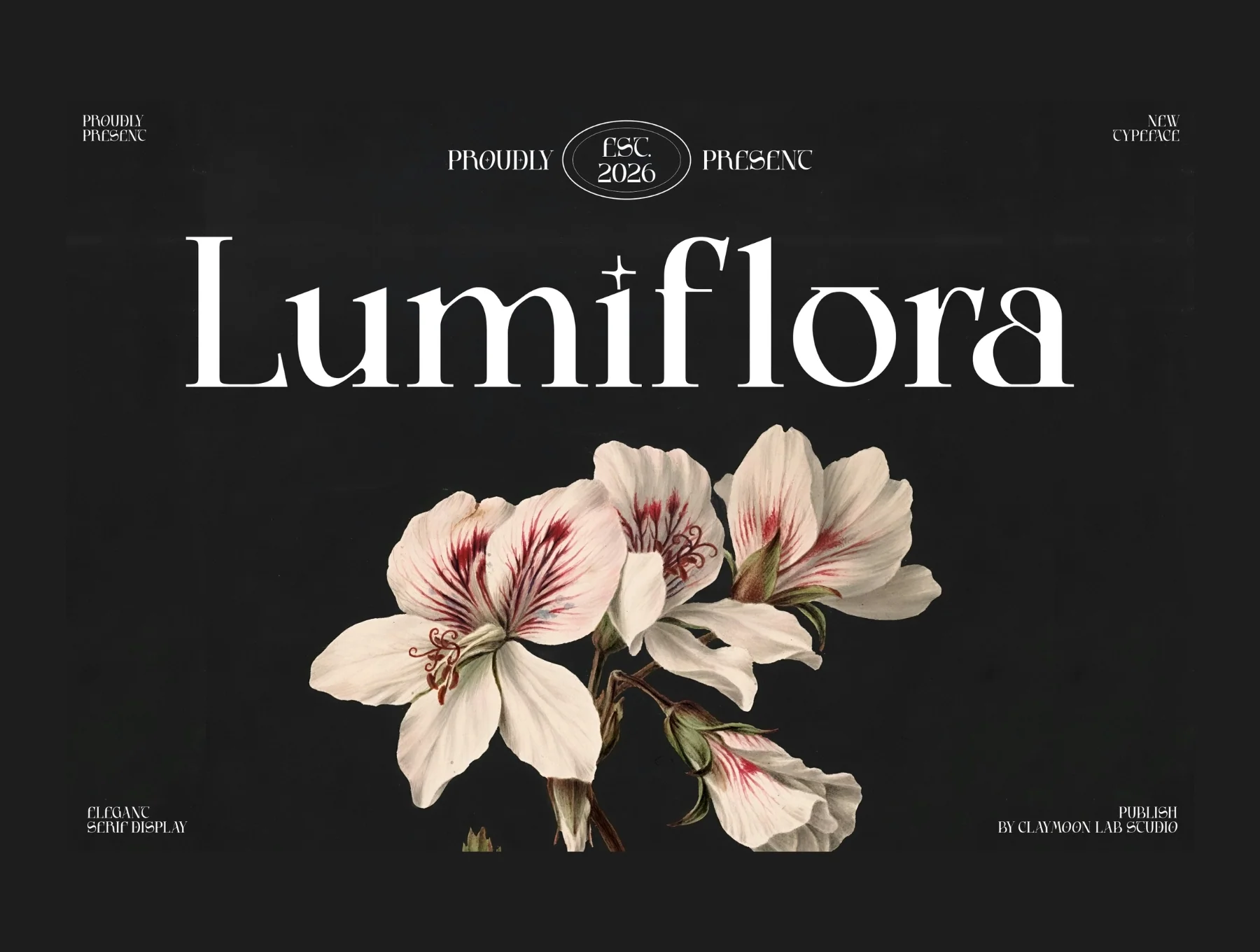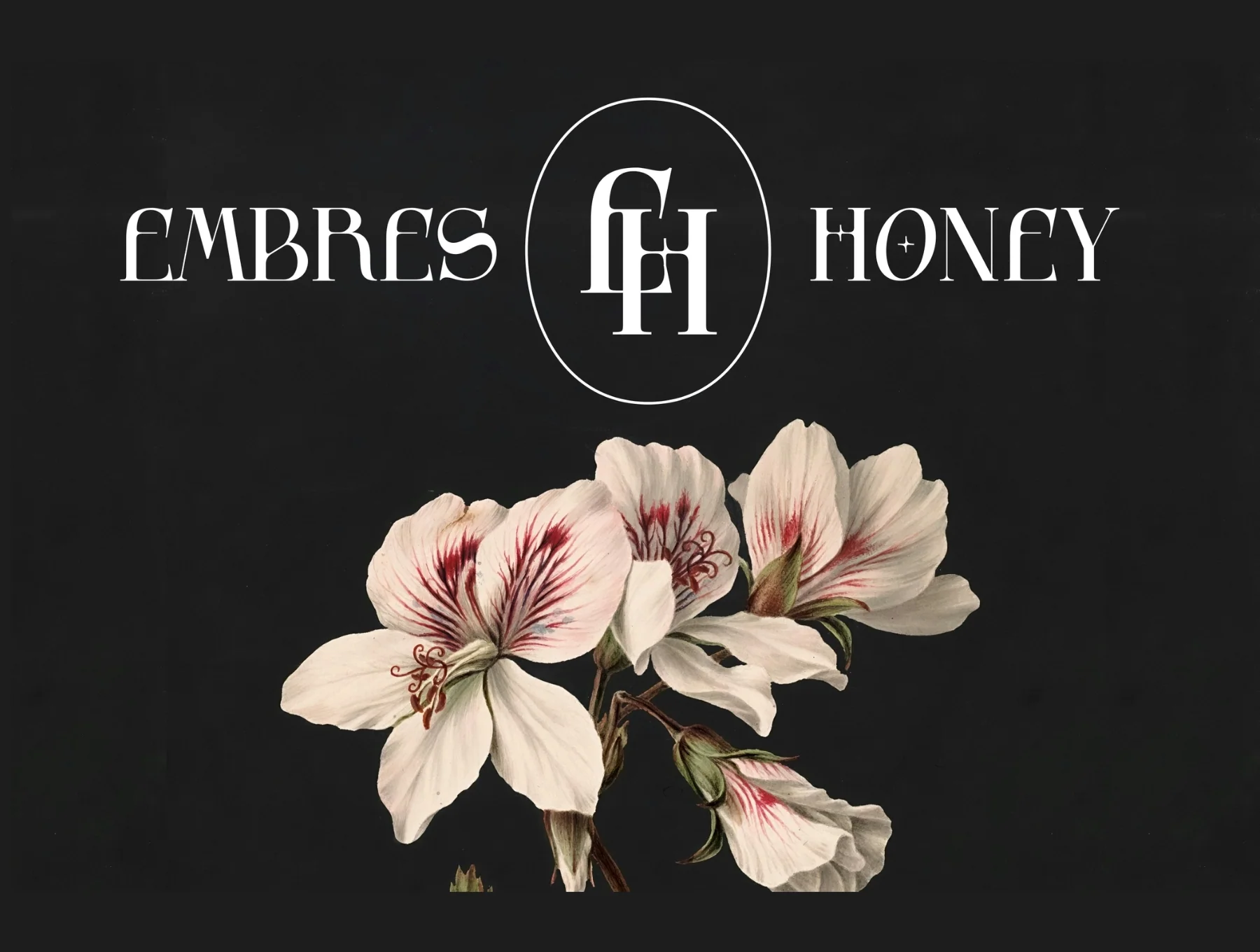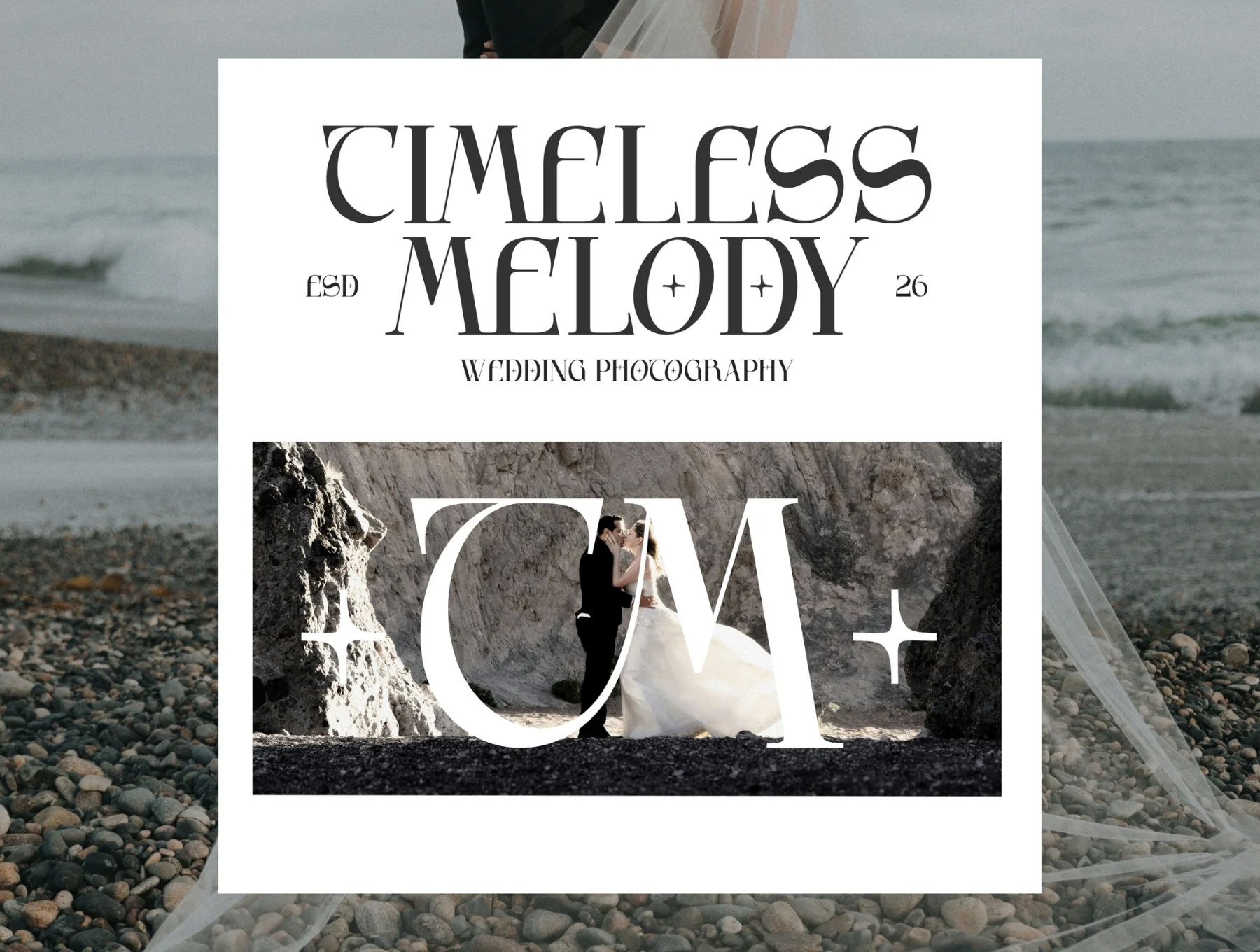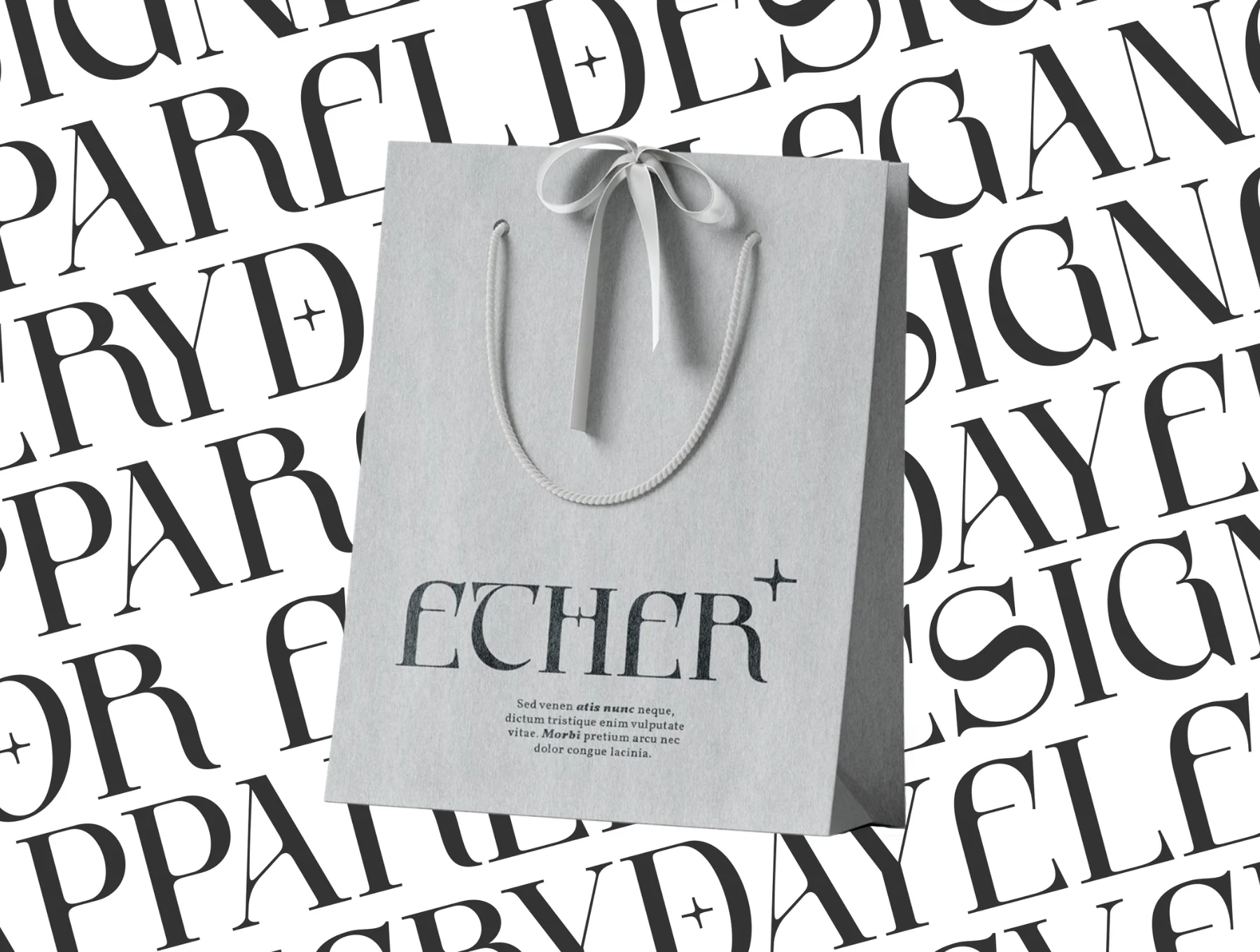
Lumiflora — Elegant Display Serif Typeface
Refined high-contrast display serif with ligatures and alternates for premium branding
Lumiflora is a high-contrast display serif blending botanical elegance with refined structure. Its tapered strokes, arched crossbars, and star-like terminals create a distinctive celestial feel. With ligatures, alternates, OTF/TTF files, full characters, and multilingual support, it suits branding, weddings, editorial, packaging, and luxury web design.